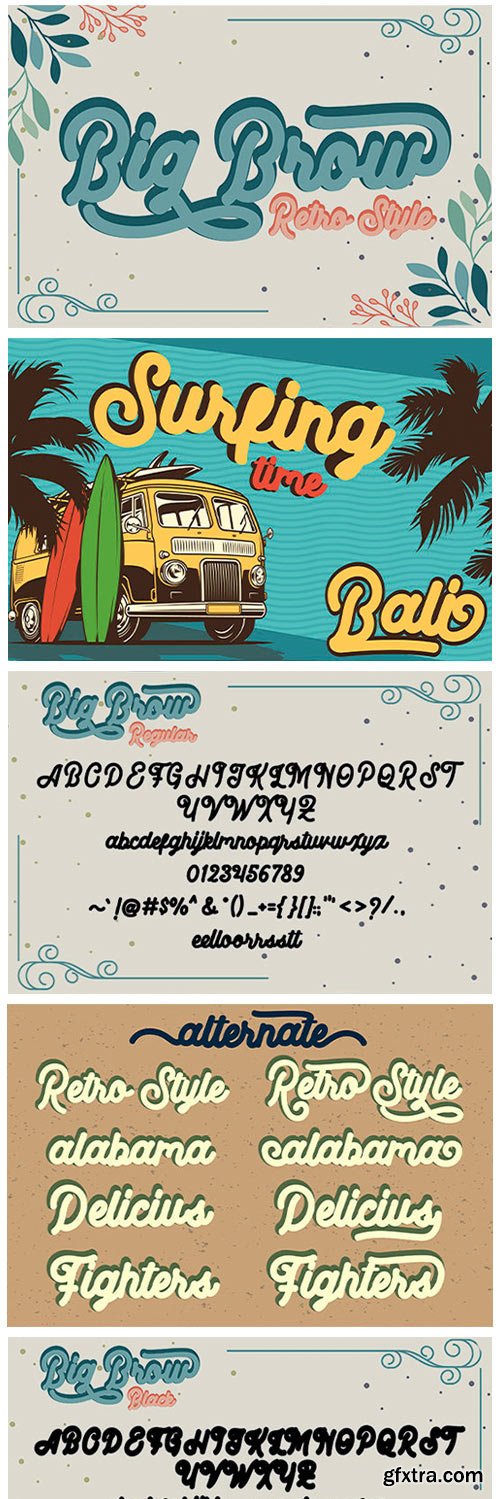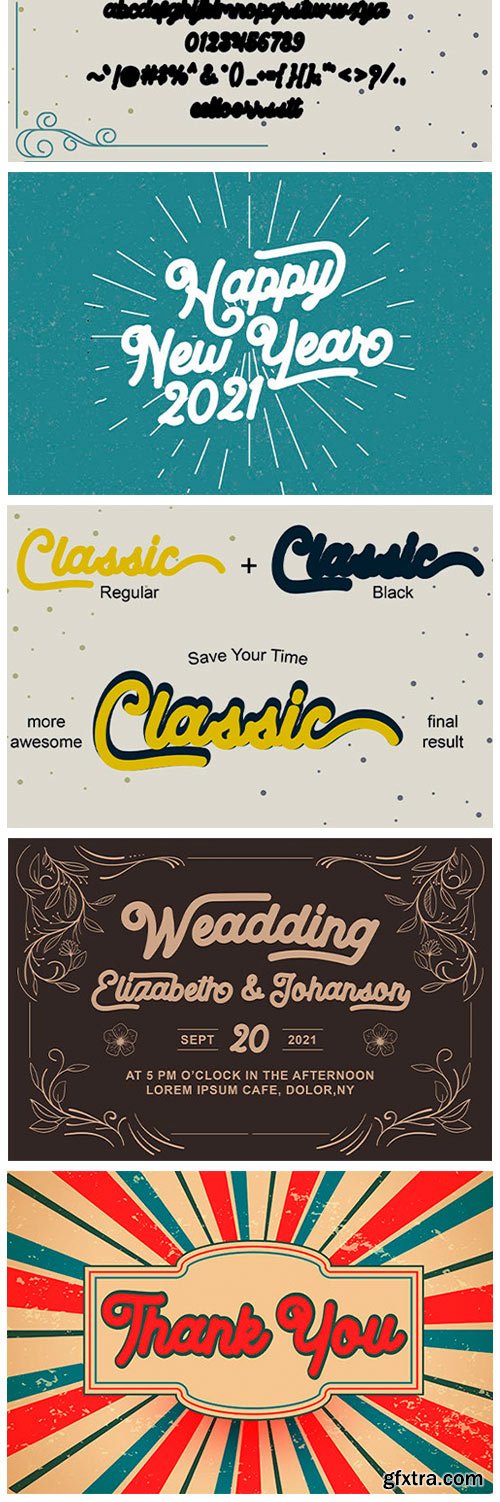
Big Brow Font
Big Brow is a bold display font with a retro style. This font is perfect to use for brands such as: barbershop, motorcycle club, clothing, coffee shop, shoe brands, vapor shop, hipster and much more.